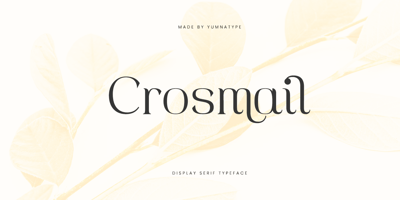
Crosmail
Crosmail font
Crosmail Font Family was designed by Donis Miftahudin and published by Yumna Type. Crosmail contains 1 styles and family package options. Crosmail is a refined serif display font that balances elegance with modernity. With its sophisticated design, this font is perfect for projects seeking a blend of classic and contemporary aesthetics. Each letter in Crosmail is meticulously crafted with precise serifs and delicate strokes, evoking a sense of refinement and sophistication. The light weight of the font adds an airy quality. What sets Crosmail apart is its visible letter contrast, which adds visual interest and depth to the text. This contrast enhances legibility and draws attention to key elements, ensuring that your message is conveyed with clarity and impact. In addition, enjoy the features here.Features: Stylistic Sets Multilingual Supports PUA Encoded Numerals and Punctuations Crossmail fits in headlines, logos, posters, flyers, branding materials, print media, editorial layouts, and many more designs. Find out more ways to use this font by taking a look at the font preview.Thanks for purchasing our fonts. Hopefully, you have a great time using our font. Feel free to contact us anytime for further information or when you have trouble with the font. Thanks a lot and happy designing.